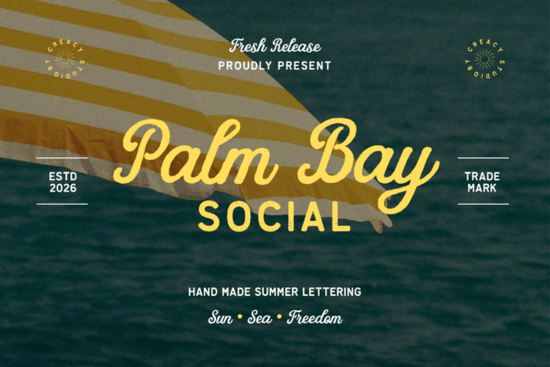
If you’ve been searching for a font that brings warm, sun-drenched vibes to your designs without veering into cliché territory, Palm Bay Social Font might be exactly what you need. It’s not just another beachy script it’s a thoughtfully crafted duo that pairs a smooth retro-inspired hand-lettered style with a clean, slightly weathered sans serif. This combination gives you flexibility whether you’re designing summer apparel, coastal wedding stationery, or social media graphics that feel effortlessly nostalgic.
What makes Palm Bay Social work so well for real-world projects?
The magic lies in its balance. The script component has the relaxed flow of mid-century travel posters think linen postcards and vintage resort signage but it’s grounded by a complementary sans serif that adds structure and readability. That duality means you’re not stuck choosing between “pretty” and “practical.” You get both in one package.
For print-on-demand sellers, this is especially useful. A T-shirt with just the script might feel too delicate, while only the sans serif could read as too plain. Used together say, the script for a headline like “Endless Summer” and the sans for “Est. 2024” you create visual rhythm that feels intentional and on-trend.
When should you reach for this font over others?
Palm Bay Social shines in contexts where warmth, authenticity, and a touch of nostalgia matter. Consider it for:
- Beach-themed branding – Cafés, surf shops, or boutique hotels looking for a refined but relaxed identity.
- Wedding invitations – Especially for destination or coastal weddings where elegance meets ease.
- Social media templates – Quotes, announcements, or seasonal promotions that benefit from a handcrafted look.
- Vintage-inspired posters – Music festivals, farmers markets, or retro travel campaigns.
If your project leans more toward bold minimalism or ultra-modern aesthetics, you might prefer something like Chunky or Juicy Come. But if you want that golden-hour glow in typography form, Palm Bay Social delivers.
How does it compare to other script fonts on Creative Fabrica?
Not all script fonts are created equal. Some lean heavily decorative (Lovely, for example, has ornate swashes perfect for formal invites), while others prioritize legibility over flair. Palm Bay Social sits comfortably in the middle decorative enough to stand out, but restrained enough to remain versatile.
Unlike The Wedding Signature, which is built specifically for formal elegance, Palm Bay Social carries a casual confidence. And compared to Beach Waves Duo, which leans into literal oceanic motifs, Palm Bay Social evokes summer through mood rather than imagery making it more adaptable across seasons and styles.
Tips for using Palm Bay Social effectively
Because it’s a font duo, take advantage of layering. Try setting your main message in the script and supporting text (dates, locations, prices) in the sans serif. Keep spacing generous crowded layouts can undermine the airy, relaxed feeling the font aims for.
Color choices matter too. Soft corals, seafoam greens, warm taupes, or even classic navy-and-cream pair beautifully. Avoid overly bright neons or stark black-on-white unless you’re intentionally going for contrast.
And remember: less is often more. One strong headline in Palm Bay Social can anchor an entire design. You don’t need to use it everywhere to make an impact.
Who is this font really for?
Small business owners creating their own marketing materials will appreciate how approachable it feels no design degree required. Crafters making custom mugs, tote bags, or wall art can use it to add personality without looking generic. Designers building brand identities for lifestyle clients will find it saves time while still feeling bespoke.
Even hobbyists experimenting with Canva or Photoshop can plug this in and immediately elevate a birthday invite or Instagram story. It’s professional but friendly, detailed but not fussy.
Before you download, ask yourself: Does my project need to feel inviting, timeless, and just a little bit sun-kissed? If yes, Palm Bay Social is worth adding to your toolkit.
Quick checklist before you use Palm Bay Social:
- ✅ Pair the script and sans serif for maximum impact
- ✅ Use ample white space to preserve its breezy feel
- ✅ Stick to muted or earthy tones for authentic summer vibes
- ✅ Test readability at small sizes save the script for headlines
- ✅ Combine with simple icons or textures (like subtle grain or watercolor washes) to enhance, not overwhelm